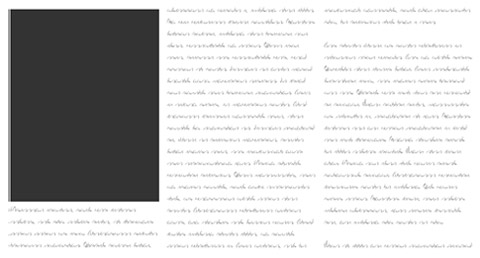
Redacted Font is an open source font which is inspired from BLOKK but has a script version besides the block. The script version is available as regular + bold and the project is so useful when wireframing.
Redacted Font